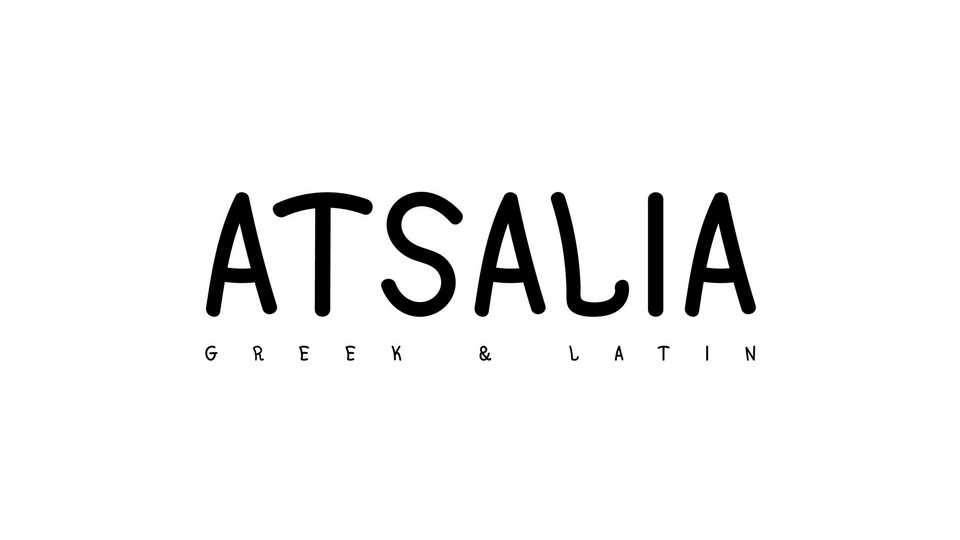
Download Atsalia font, a handwritten typeface, based on the personal handwriting. Atsalia is not for “long text” use but for use, perhaps in some words only, like in logos or in some poster for title etc.
Designer: Christos Lentzaris